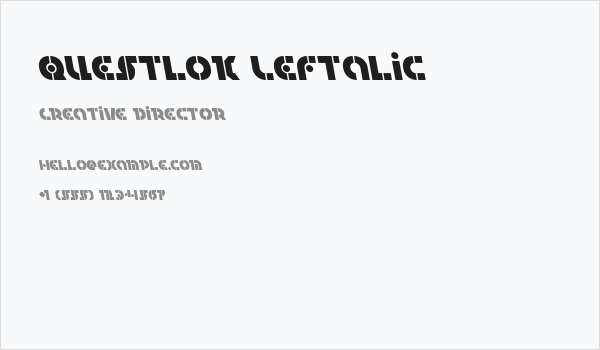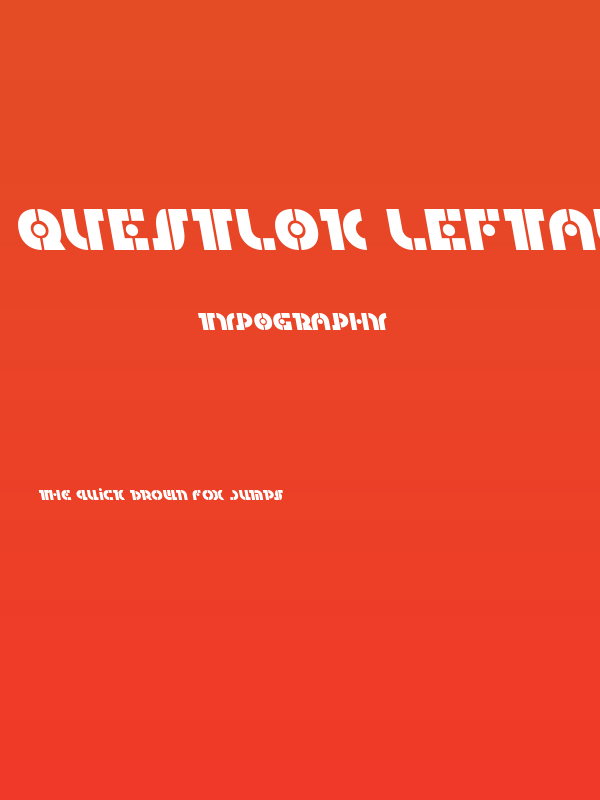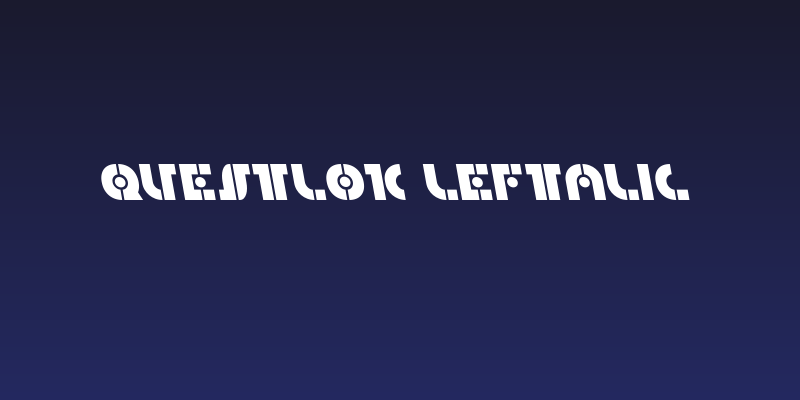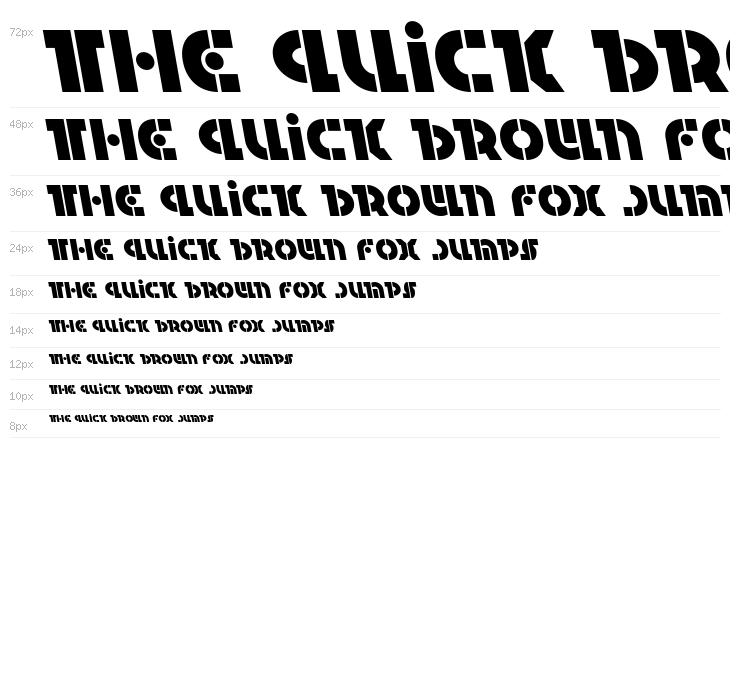
Questlok Leftalic Font
Questlok Leftalic Description
This font features a bold and geometric design with a distinct stencil-like appearance. The characters are constructed with thick, blocky strokes and have a unique cut-out style that adds a modern and industrial feel. The uppercase and lowercase letters maintain a consistent width, creating a uniform look across the typeface. The numbers and special characters follow the same design principles, ensuring cohesion throughout. The font's boldness and angular shapes make it stand out, ideal for projects that require a strong visual impact.
| Proposed Projects | Ideal for branding, posters, signage, and any design needing a bold, impactful typeface. |